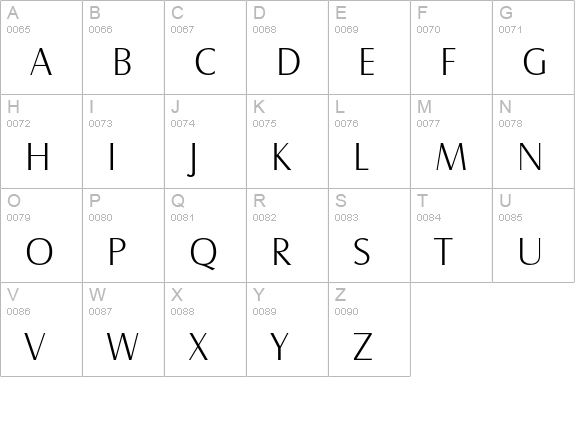
CastleEF-Light is a refined, elegant variant in the CastleEF typeface family \xE2\x80\x94 well suited to elegant body text, refined sub-headings, and luxury branding.
CastleEF-Light font is a sophisticated and elegant typeface that exudes a sense of luxury and refinement. Its sleek and modern design makes it perfect for a wide range of design projects, from branding to editorial work. The delicate serifs and clean lines of CastleEF-Light font bring a touch of class to any text or headline. What's even better is that CastleEF-Light font is completely free to download at FontsMarket.com. This means you can enhance your design projects with this stunning font without having to spend a dime. So why wait? Download CastleEF-Light font today and elevate your designs with its timeless elegance.